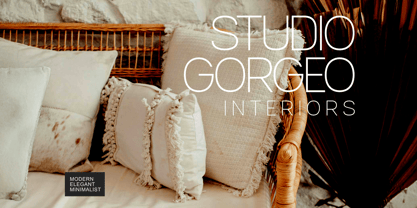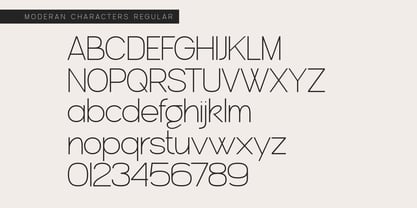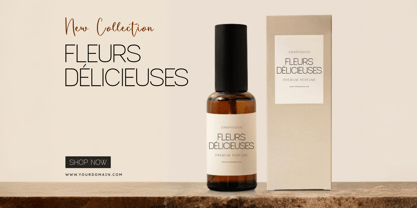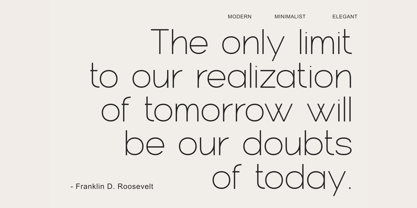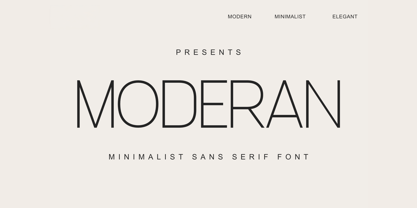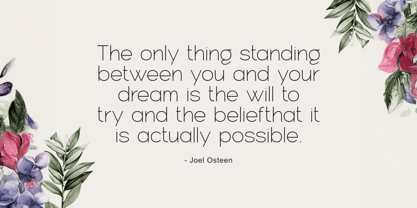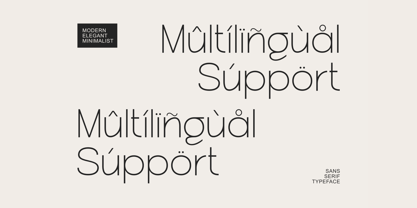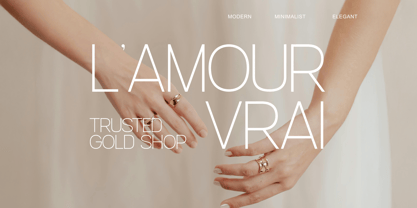
Moderan
The Moderan Font Family was designed by Faiz Alqurni and published by Illustraly. Moderan contains 2 styles and family package options.
Moderan is a minimalist sans serif designed to capture modern elegance with effortless simplicity. Featuring clean lines and a refined silhouette, Moderan is perfect for sophisticated branding, sleek logos, editorial headlines, and contemporary social media graphics that embrace a minimalist aesthetic.
The Regular style offers crisp, balanced letterforms for a timeless, versatile feel, while the Italic style introduces subtle movement and a modern twist. Whether you’re building a high-end brand identity or crafting an understated editorial layout, Moderan brings clarity and quiet confidence to your typography.
From premium packaging to stylish digital content, Moderan is made for creators who value simplicity and elegance in equal measure.
Features:
* Minimalist sans serif with modern, elegant character
* Two styles: Regular • Italic
* Uppercase & lowercase letters
* Numerals & punctuation
Let your words speak with clarity and modern grace — with Moderan.
Perfect for: Branding • Logos • Posters • Editorial • Social Media • Packaging